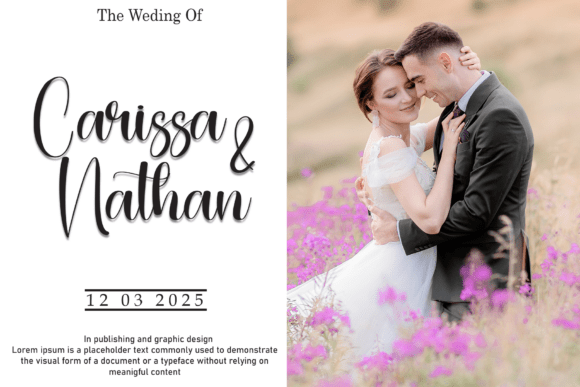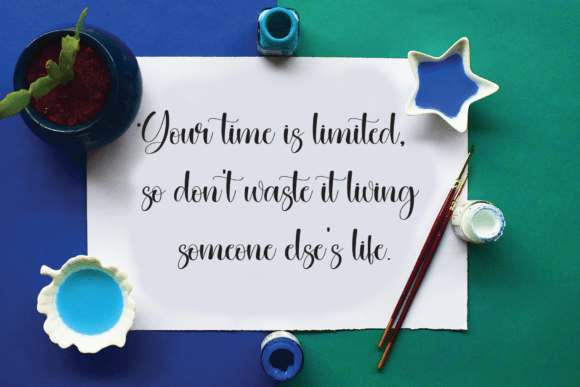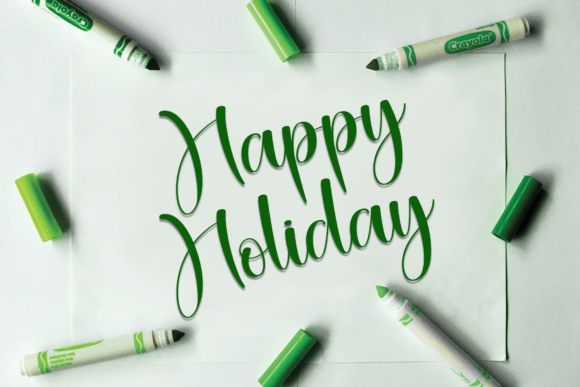
Introduction to Sand Beach Font
Remember that moment when you’re brainstorming ideas for a new design project, and the perfect font pops into your head? It’s like the whole concept clicks, and you know you’re onto something special. For me, that moment came when I discovered the Sand Beach Font – a confident script calligraphy font that effortlessly balances modern style with smooth readability.
As a designer, I know how valuable it is to have a reliable design resource like Sand Beach Font in your toolkit. With its high-quality, transparent background, it’s the perfect fit for logos, product packaging, fashion branding, and editorial design projects that need a touch of flair. And the best part? You can download it for free, making it an invaluable addition to any creative project.
Key Features of Sand Beach Font
- High-quality design: The Sand Beach Font is a beautifully crafted, high-quality design resource perfect for creative projects.
- Large character set: The Sand Beach Font includes a large character set, including uppercase and lowercase letters, numbers, and punctuation marks.
- Unique, hand-drawn style: The Sand Beach Font features a unique, hand-drawn style that sets it apart from other fonts in its class.
Honest Review: Sand Beach Font
As a designer, I’m always on the lookout for high-quality design resources to elevate my creative projects. The Sand Beach Font caught my attention, and I decided to give it a try.
What works well: ✨ The font is beautifully designed, with a unique and stylish aesthetic that’s perfect for beach-themed projects or anything that requires a relaxed, coastal vibe. The transparent background is also a nice touch, making it easy to work with in various design scenarios.
- High-quality design with a unique aesthetic
- Transparent background for easy use in various design scenarios
However, there are some limitations to consider: ⚠️ The font is only available in a limited number of weights, which may not be suitable for projects that require a range of font styles.
Overall, the Sand Beach Font is a solid addition to any designer’s toolkit. While it may not be perfect, its unique design and transparent background make it a great resource for creative projects. If you’re looking for a high-quality font with a beachy vibe, the Sand Beach Font is definitely worth checking out.
The Sand Beach Font is perfect for a variety of creative projects, including logo design, social media graphics, and even wedding invitations. Its high-quality design and transparent background make it a great choice for any project that requires a unique and visually appealing style.